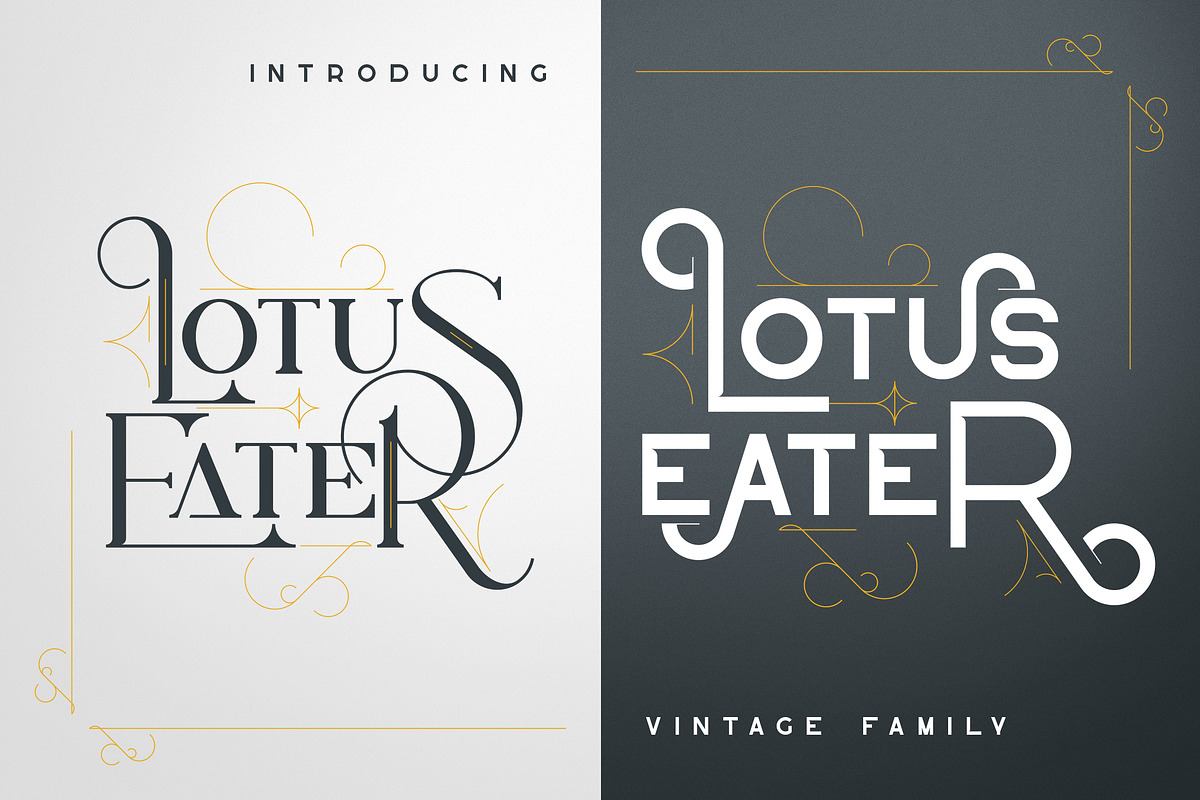
Lotus Eater - Vintage Family Font Free Download is a charming, retro-inspired typeface that brings timeless elegance to your design projects. Please note: you must purchase this font for commercial use, but you can test it through a free download. With its vintage flair and versatile style, Lotus Eater is perfect for branding, packaging, wedding invitations, and editorial design.
The font family includes multiple weights and styles, giving designers the flexibility to create cohesive and visually captivating layouts. Whether you're crafting a nostalgic logo or designing eye-catching signage, Lotus Eater - Vintage Family Font Free Download delivers the warmth and personality of classic typography. It works seamlessly with design tools like Adobe Illustrator, Photoshop, and others, making it an essential addition to your creative arsenal. Download it today to explore the charm and character it brings to personal projects!